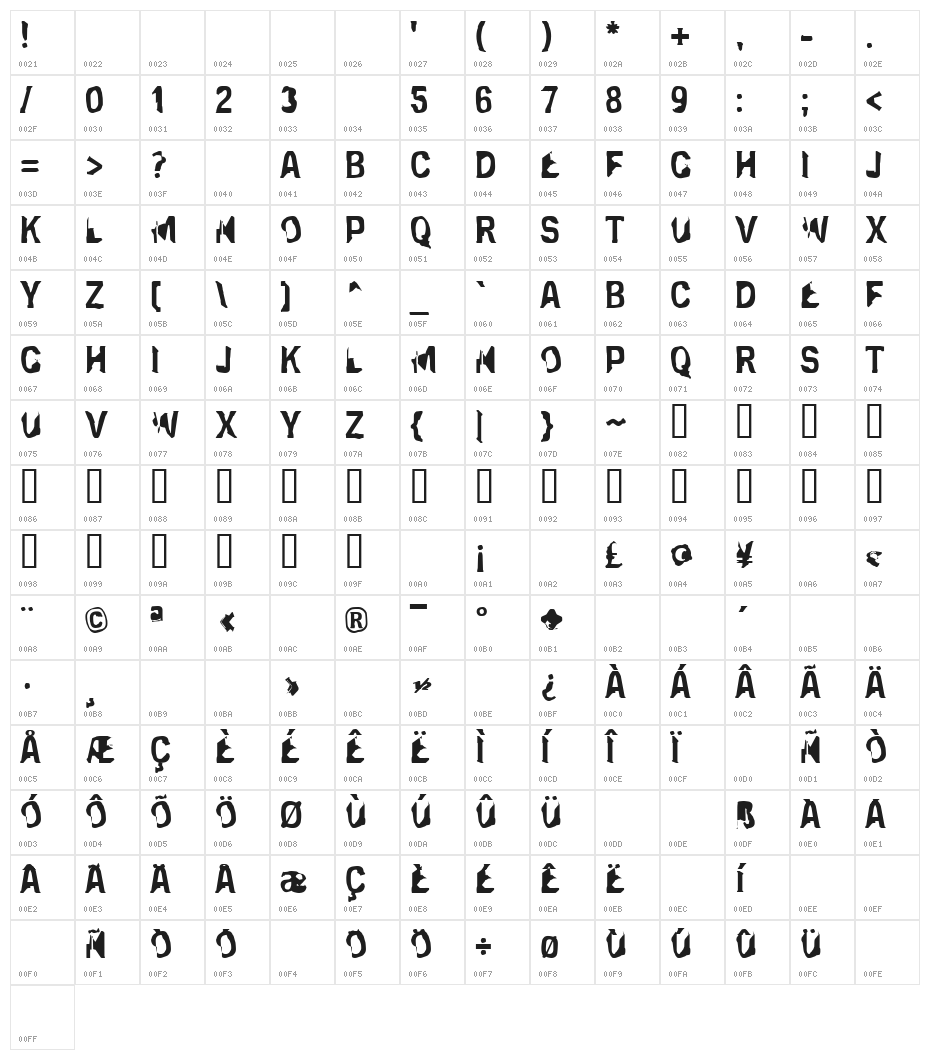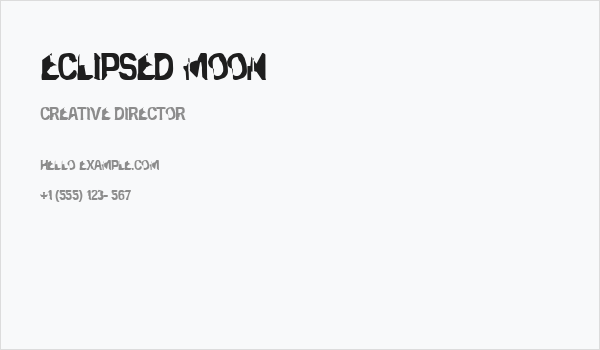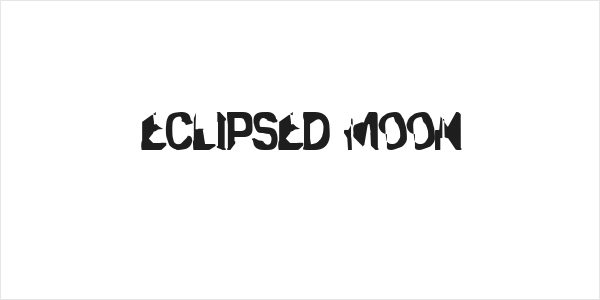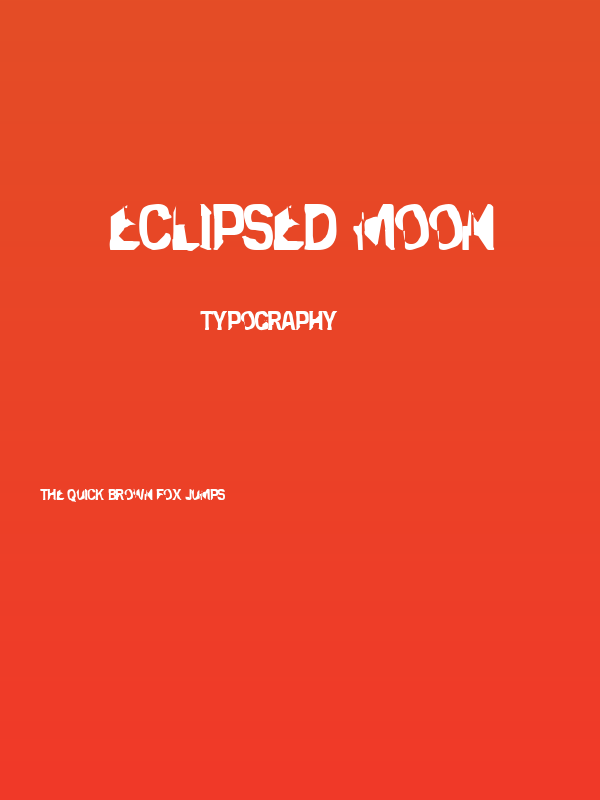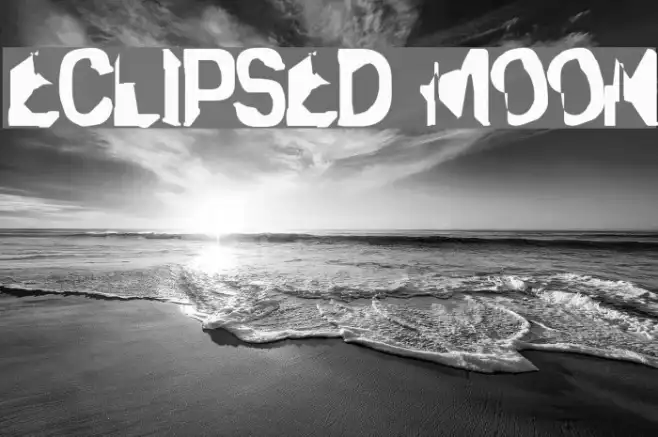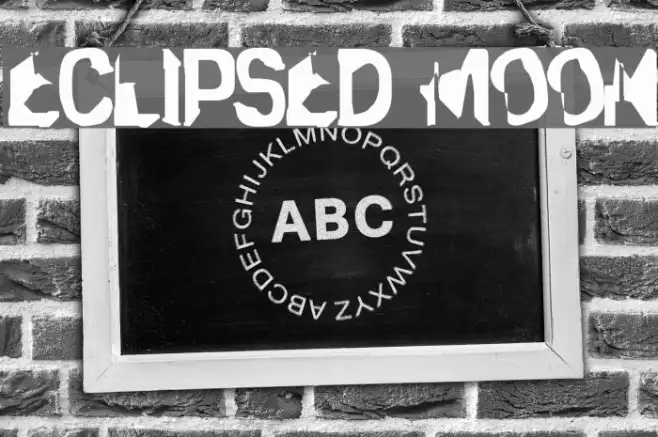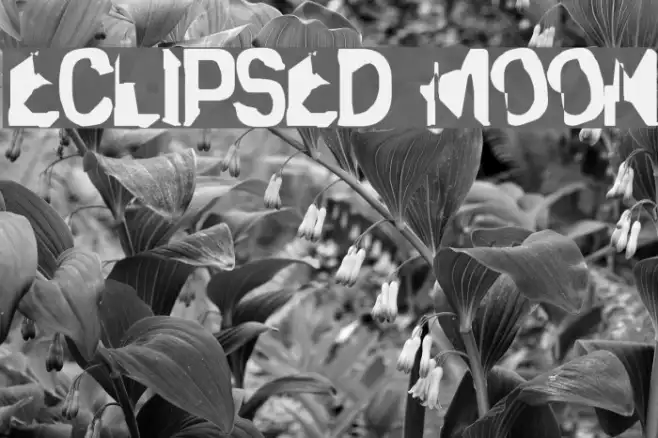
Eclipsed Moon Font
Eclipsed Moon Description
This font features a bold and dramatic style with a unique, distressed appearance. Each character appears as if it has been partially eclipsed or shadowed, creating an intriguing visual effect. The bold strokes and irregular edges give it a rugged, edgy feel, making it stand out in any design. The uppercase and lowercase letters maintain a consistent style, while the numbers and special characters complement the overall aesthetic. This font is perfect for projects that require a strong, impactful look with a touch of mystery or darkness.
| Proposed Projects | Ideal for posters, album covers, horror-themed designs, and branding that requires a bold statement. |